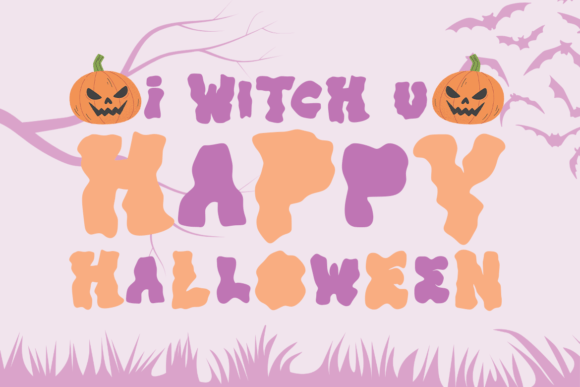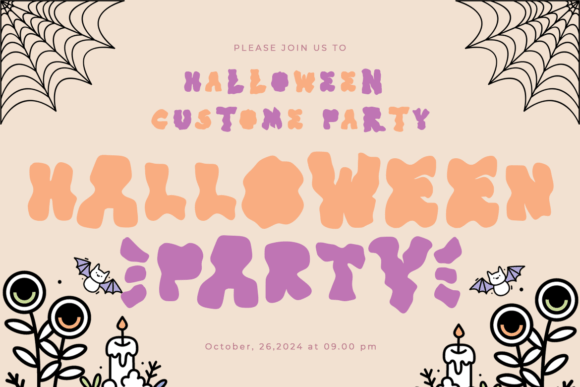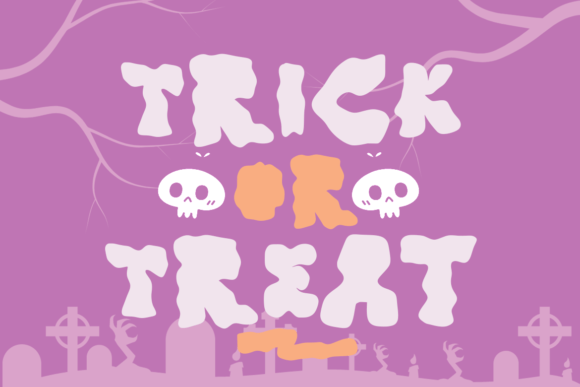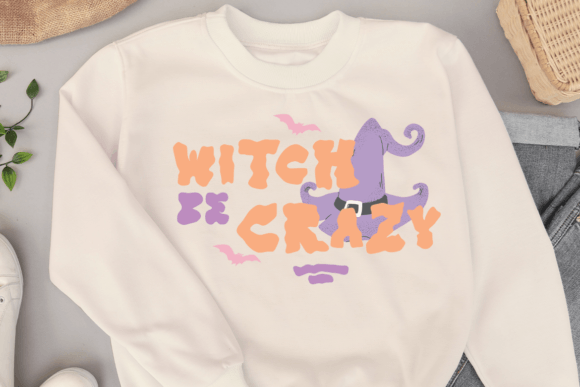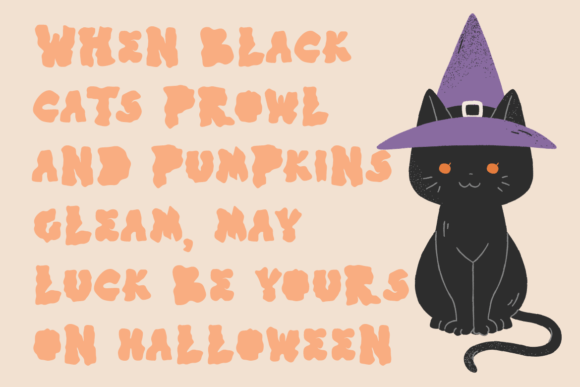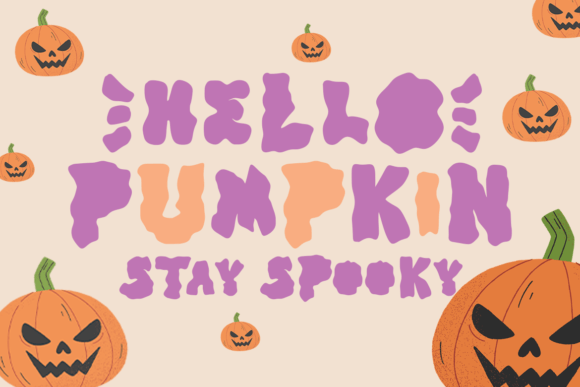
Unleash the Power of the Macabre in Your Designs
As designers, we’re always on the lookout for that one special element to elevate our projects and make them truly unforgettable. And sometimes, that magic happens when we stumble upon a font that’s as eerie as it is captivating. For me, that moment came when I discovered the Broken Ground Font – a display font that’s equal parts spooky and mesmerizing.
Broken Ground Font is a unique and intriguing typeface designed to add a touch of darkness and mystery to your designs. With its irregular shapes and haunting aesthetic, it’s perfect for creating attention-grabbing headlines, eerie illustrations, or even haunted houses in your digital artwork. Whether you’re working on a horror-themed project or simply want to add a dash of the unknown to your designs, the Broken Ground Font is a valuable addition to any designer’s toolkit.
Broken Ground Font Key Features
- Character Set: This font includes a wide range of characters, including Latin, Cyrillic, and Greek alphabets, as well as various punctuation marks and symbols.
- Unique Characteristics: Broken Ground Font features a distressed, worn look, with subtle texture and imperfections that give it a vintage feel.
Broken Ground Font Review
Broken Ground Font is a unique, hand-drawn font that offers a distinctive aesthetic for designs. ✨ One of its strongest features is its versatility – it can be used for both modern and vintage-inspired projects. The font’s irregular shapes and textured feel add a touch of organic charm to any text. ✨ It’s also great for adding emphasis to headings and titles, thanks to its bold and eye-catching nature.
However, there are some limitations to consider. ⚠️ One of the main issues is the font’s irregularity, which can sometimes make it difficult to read. This can be a problem for longer blocks of text, where the font’s inconsistent spacing and letterforms may cause eye strain. Additionally, the font may not be suitable for all types of projects, particularly those that require a more formal or professional tone.
Here are some specific limitations to keep in mind:
- Difficult to read in longer blocks of text
- May not be suitable for formal or professional projects
- Irregular spacing and letterforms can cause eye strain
Overall, Broken Ground Font is a great choice for designers who want to add a touch of personality and whimsy to their projects. While it may not be suitable for all types of designs, its unique charm and versatility make it a valuable addition to any font library.
The Broken Ground Font is ideal for:
- Outdoor and adventure-themed designs.
- Travel and tourism branding.
- Outdoor apparel and equipment branding.
- Adventure and sports-related marketing materials.
For optimal results, use the Broken Ground Font in combination with other earthy and natural design